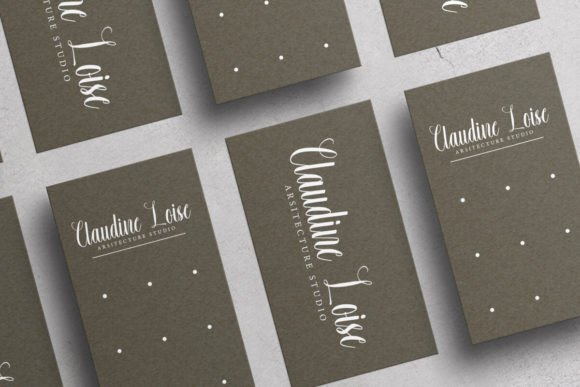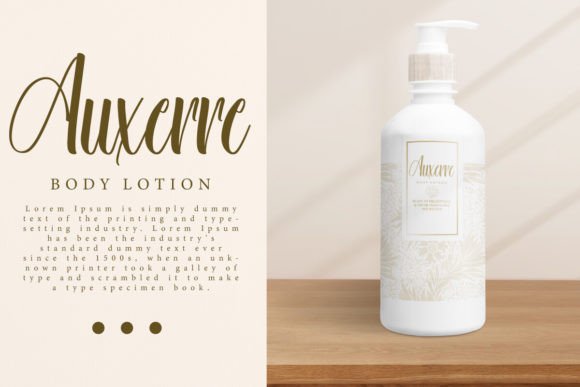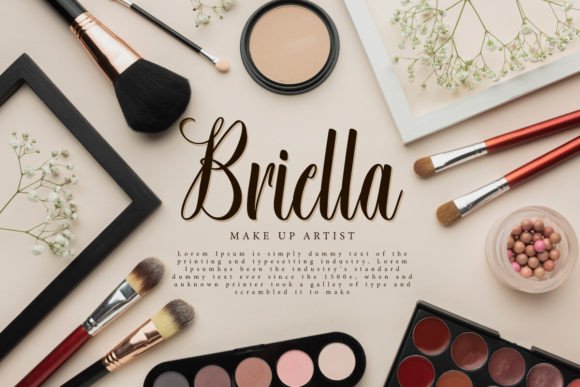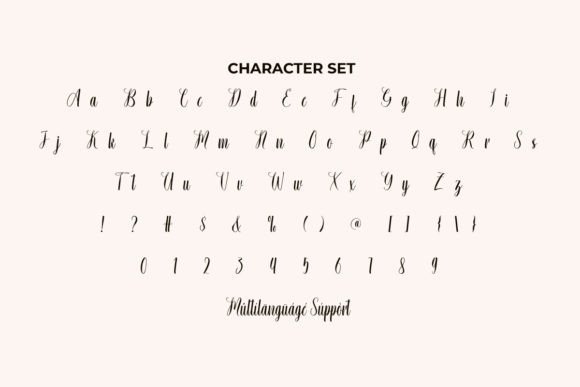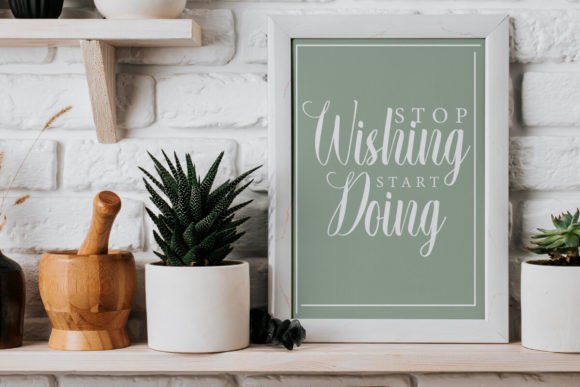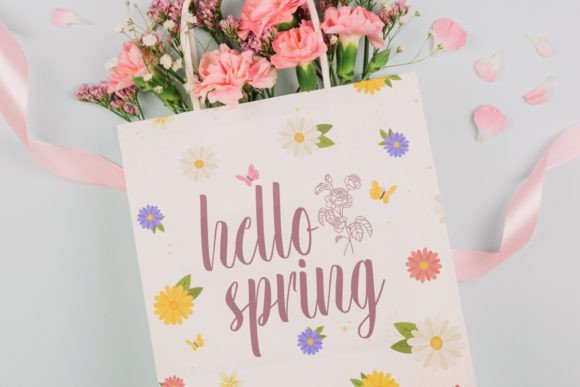
Baby Creamy Font: The Ultimate Soft Script Font for Your Design Needs
Are you a designer or crafter looking for a font that exudes elegance and sophistication? Look no further than the Baby Creamy Font, an alluring soft script font that’s perfect for a wide range of industries and design applications. In this article, we’ll take a closer look at the features and benefits of Baby Creamy Font, and explore how it can elevate your designs to the next level.
What is Baby Creamy Font?
Baby Creamy Font is a beautiful soft script font that’s designed to make a lasting impression. Its neat and classy appearance makes it easy to read, while its elegant curves and lines add a touch of sophistication to any design. Whether you’re working on a logo, brochure, or website, Baby Creamy Font is the perfect choice for designers and crafters who want to create stunning visuals.
Key Features of Baby Creamy Font
- Soft and Elegant Appearance: Baby Creamy Font has a soft and elegant appearance that’s perfect for designs that require a touch of sophistication.
- Easy to Read: The font’s neat and classy impression makes it easy to read, even at small sizes.
- Versatile: Baby Creamy Font is suitable for a wide range of industries, including accessories, architecture, clothing brands, cosmetics, event organizers, flower shops, photography, printing, publishing, restaurants, and more.
- High-Quality Design: The font is designed with high-quality curves and lines, ensuring that it looks great in any design application.
Industries That Can Benefit from Baby Creamy Font
Baby Creamy Font is a versatile font that can be used in a wide range of industries, including:
- Accessories: Use Baby Creamy Font to create elegant and sophisticated branding for your accessories business.
- Architecture: Add a touch of class to your architectural designs with Baby Creamy Font.
- Clothing Brands: Use Baby Creamy Font to create stylish and elegant branding for your clothing brand.
- Cosmetics: Baby Creamy Font is perfect for cosmetics brands that want to create a luxurious and sophisticated image.
- Event Organizers: Use Baby Creamy Font to create elegant and sophisticated branding for your event planning business.
- Flower Shops: Add a touch of elegance to your flower shop’s branding with Baby Creamy Font.
- Photography: Use Baby Creamy Font to create stylish and elegant branding for your photography business.
- Printing and Publishing: Baby Creamy Font is perfect for printing and publishing businesses that want to create high-quality and elegant designs.
- Restaurants: Use Baby Creamy Font to create a sophisticated and elegant atmosphere for your restaurant.
Why Choose Baby Creamy Font?
There are many reasons why Baby Creamy Font is the perfect choice for designers and crafters. Here are just a few:
- Elegant and Sophisticated: Baby Creamy Font has an elegant and sophisticated appearance that’s perfect for designs that require a touch of class.
- High-Quality Design: Baby Creamy Font is designed with high-quality curves and lines, ensuring that it looks great in any design application.
In conclusion, Baby Creamy Font is an alluring soft script font that’s perfect for designers and crafters who want to create elegant and sophisticated designs. Its neat and classy appearance makes it easy to read, while its elegant curves and lines add a touch of sophistication to any design. With its versatility and high-quality design, Baby Creamy Font is the perfect choice for a wide range of industries and design applications.